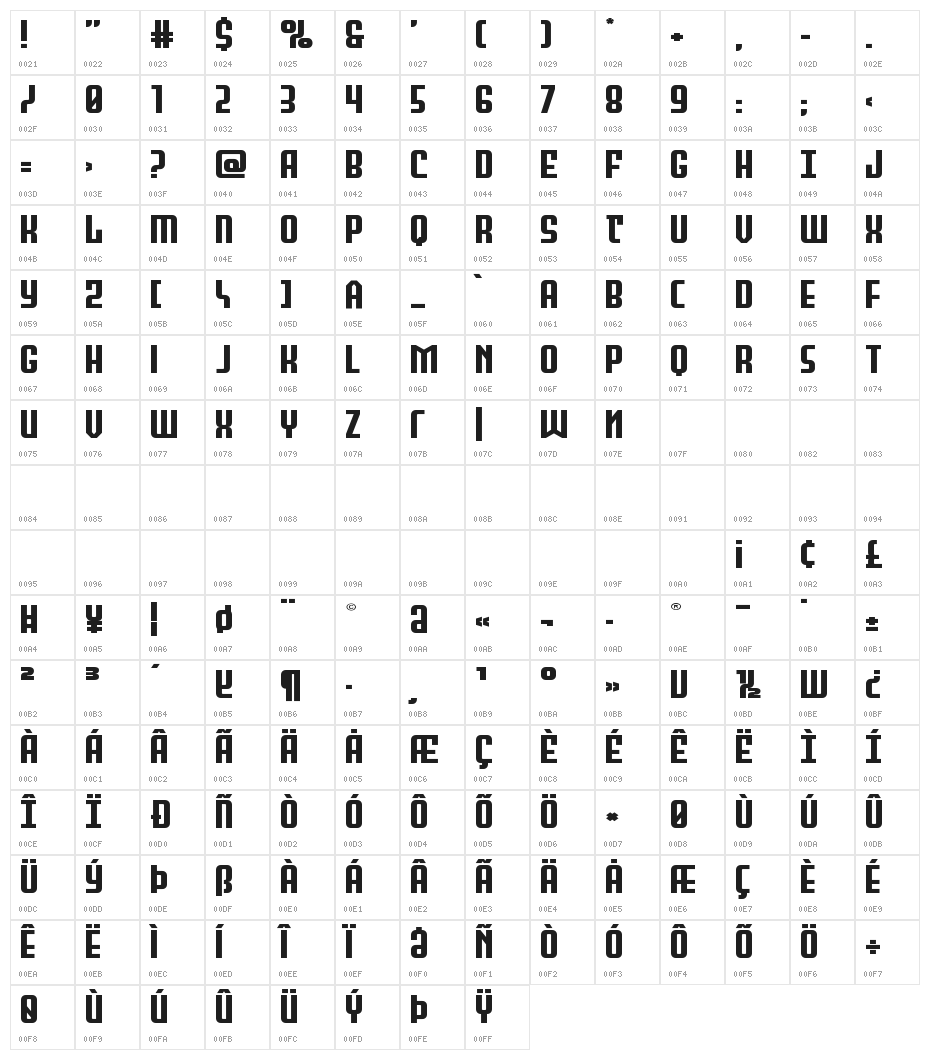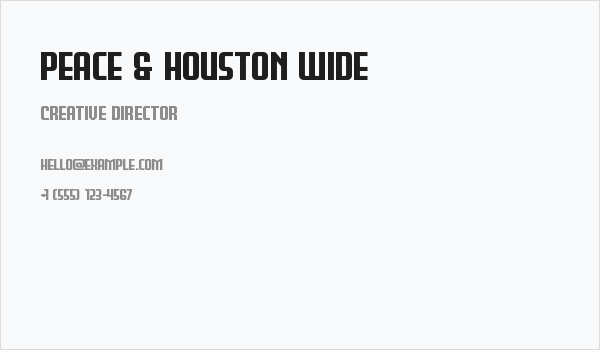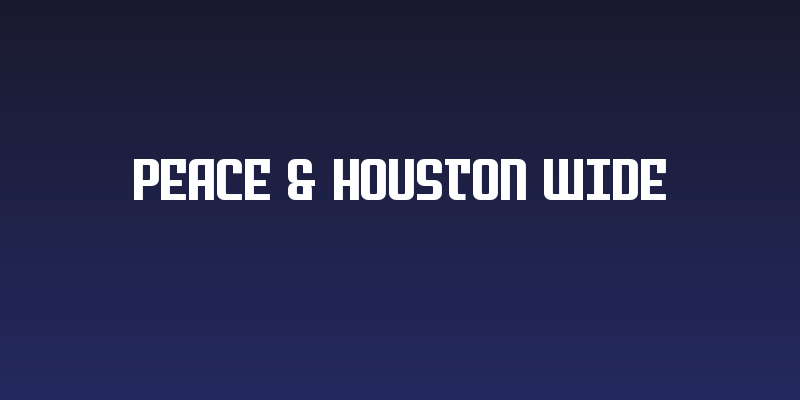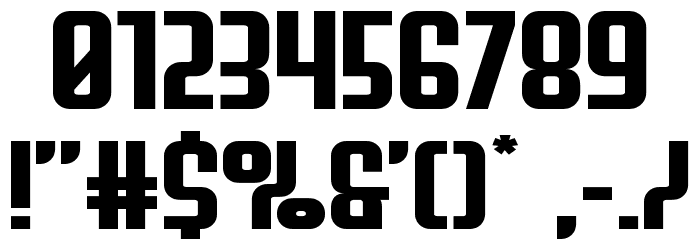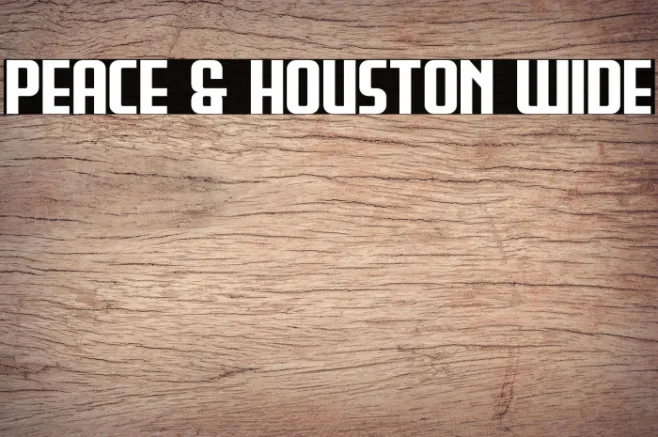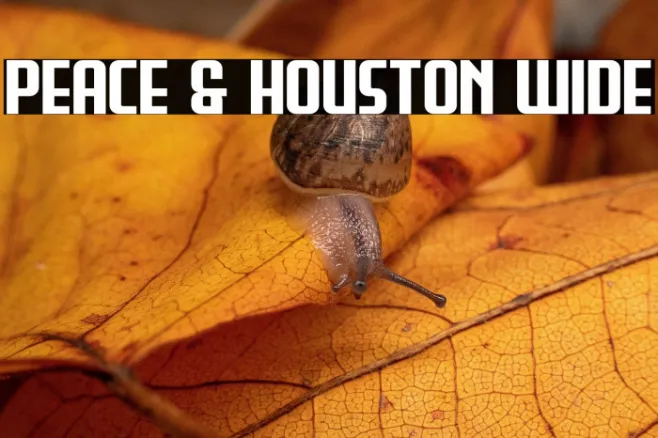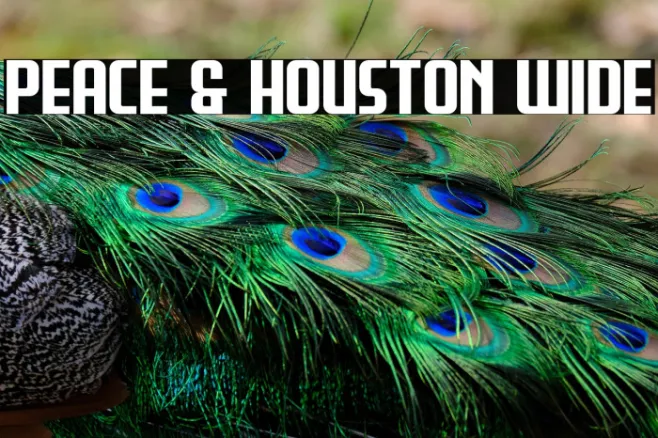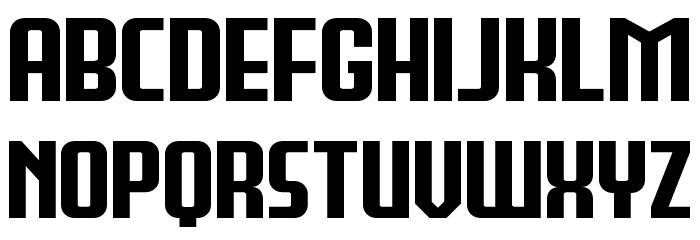
Peace & Houston Wide Font
Peace & Houston Wide Description
This font features a bold and geometric design with a strong presence. The characters are uniformly wide, creating a sense of stability and modernity. The uppercase letters are particularly striking, with a consistent height and width that emphasize their boldness. The lowercase letters maintain the same geometric style, ensuring a cohesive look across all text. The numerals are clear and easy to read, matching the overall bold aesthetic. Special characters are designed with the same attention to detail, making them stand out while remaining harmonious with the rest of the font. This font's design is ideal for making a strong visual impact.
| Proposed Projects | Ideal for branding, posters, headlines, and any project requiring a strong visual impact. |